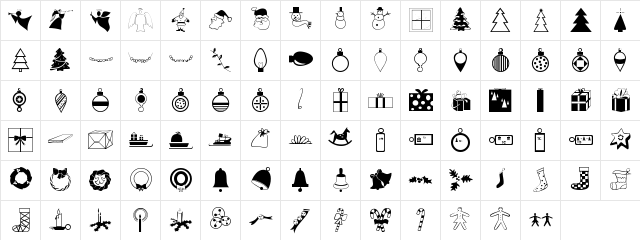
Journal Dingbats 4 Regular Font Preview
Journal Dingbats 4 Regular
Design Context for Journal Dingbats 4 Typeface
Journal Dingbats 4 takes a measured approach to typography — its balanced proportions and neutral character make it a reliable workhorse for both digital and print work.